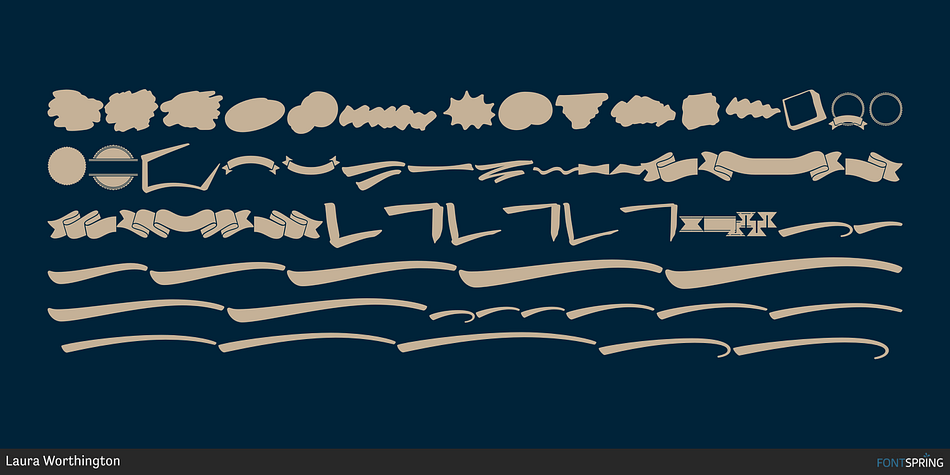
Ed's Market Design Elements
Designed by Laura Worthington, Ed's Market is a brush display, brush script and dingbat font family. This typeface has eleven styles and was published by Laura Worthington.
It’s like hiring your own professional sign painter with a solid repertoire of styles. Each one is distinctive, yet clearly by the same hand – in this case, Laura Worthington’s, holding a pointed brush. No variants were created on the computer; each weight and version was individually hand-lettered.
Ed’s Market lets you evoke the warm, inviting vibe of classic 20th-century grocery posters and showcard lettering right from your type menu. But smart programming ensures that digital perfection doesn’t trump human charm: each display face features three variations of each letter, to ensure a natural hand-painted look when characters repeat.
Ed’s Market includes a main script, bold script, and upright script, each with more than 100 alternate characters and swash forms. The display faces include mixed-case regular, and all-caps versions of narrow, narrow slant, regular slant, bold, bold slant, and wide styles.
The best sign painters added practical graphic elements to accent their layouts, and Ed’s Market is no exception. Mix and match the script and display styles with Ed’s Market design elements, featuring expandable arrows, rules and ribbons; along with badges, swashes, scribbles, clouds and snipes.